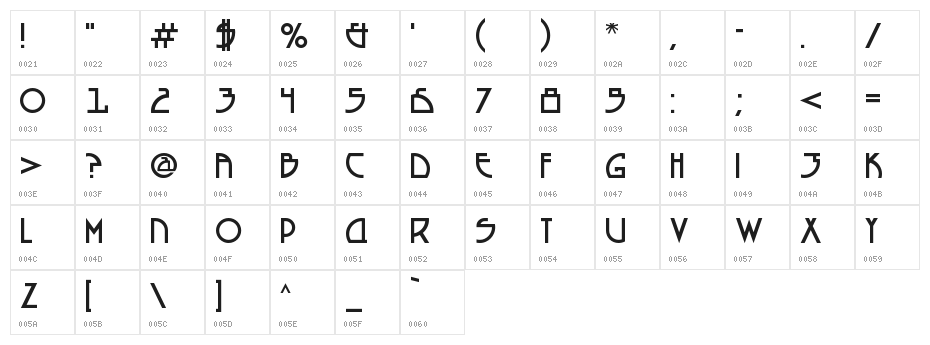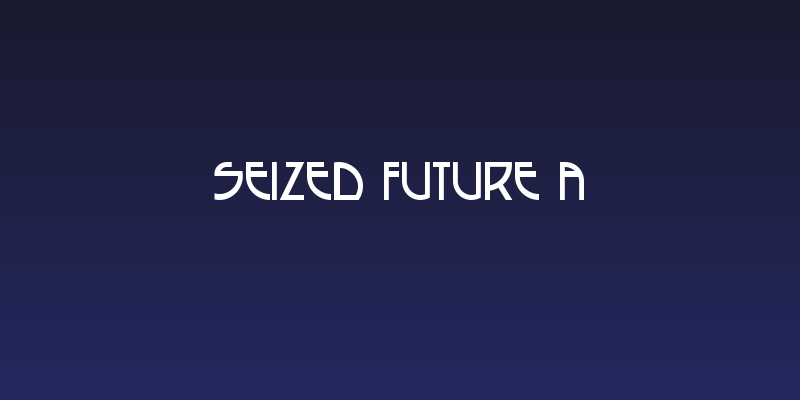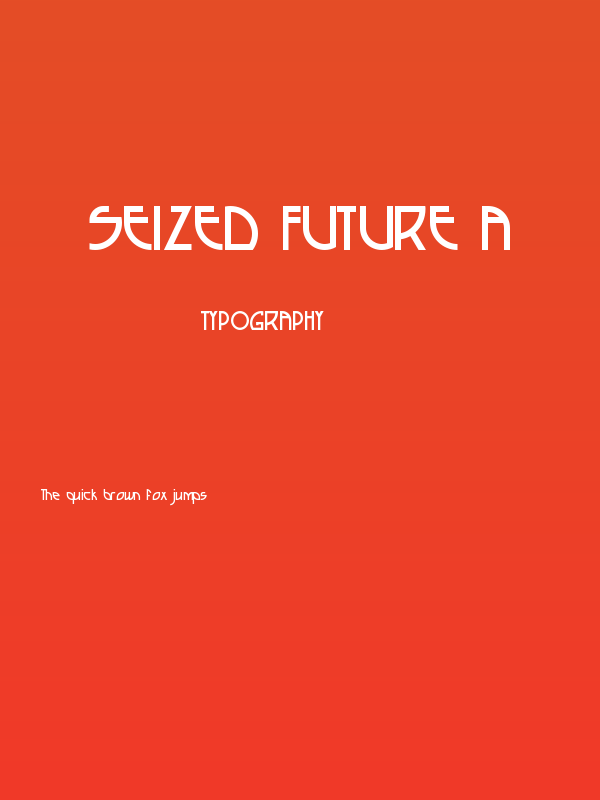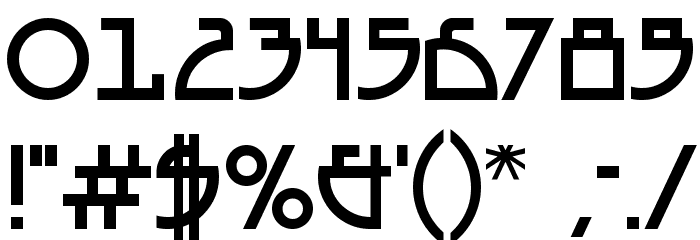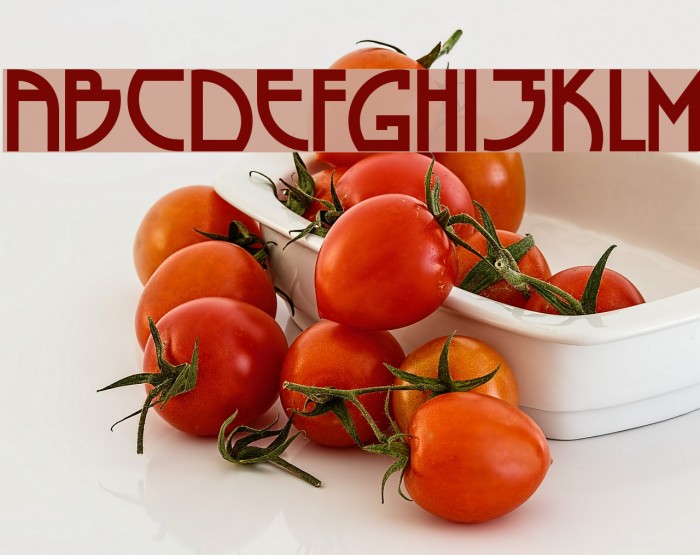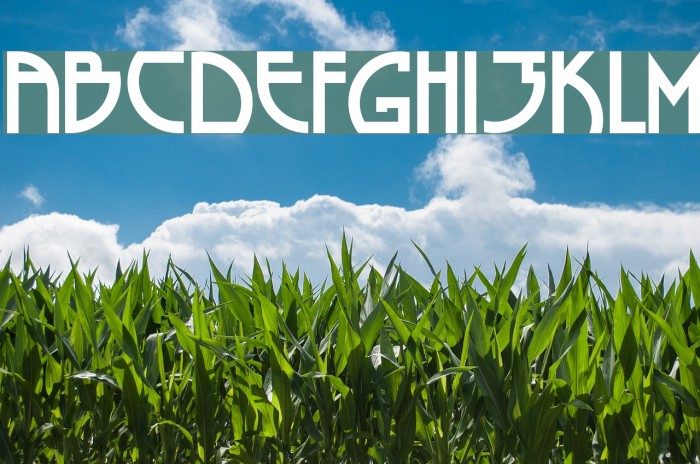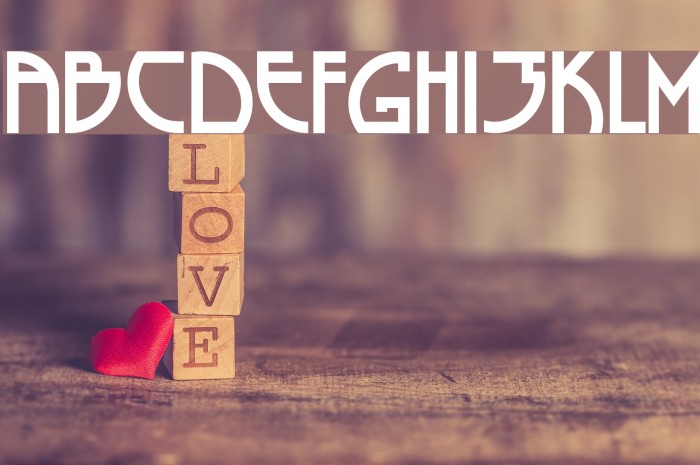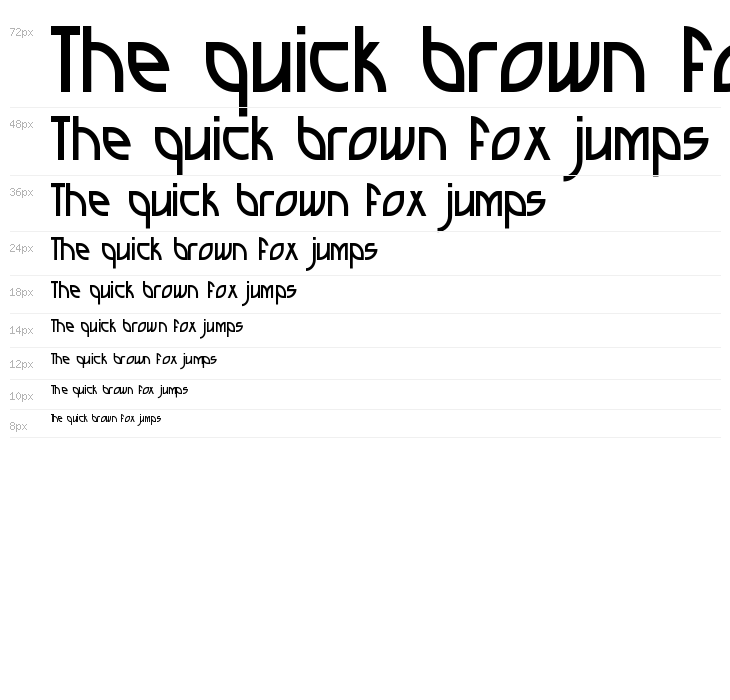
Seized Future A Font
Seized Future A Description
This font features a futuristic and geometric design, characterized by its bold and angular letterforms. The uppercase and lowercase letters share a consistent style with sharp edges and a modern aesthetic. The numerals are uniquely styled, maintaining the geometric theme, and the special characters complement the overall design. The font's structure is clean and precise, making it suitable for projects that require a contemporary and tech-inspired look.